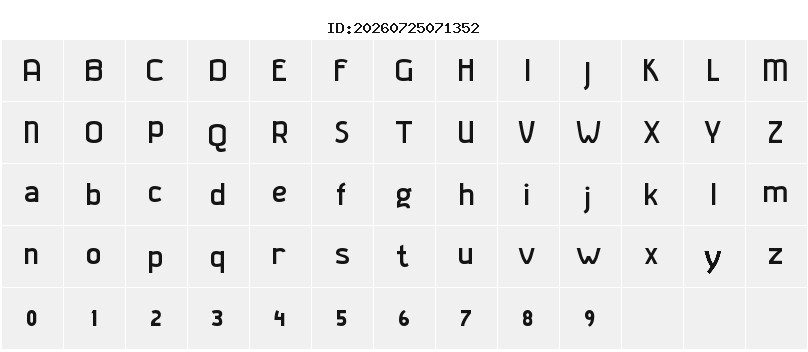
• Font Name: Gladatur Rum
• Full Font Name: Gladatur Rum
About Gladatur Rum.ttf
Gladatur Rum.ttf is a modern, elegant sans-serif font designed for ultimate readability and visual harmony. Perfect for branding, headlines, web design, and print materials.